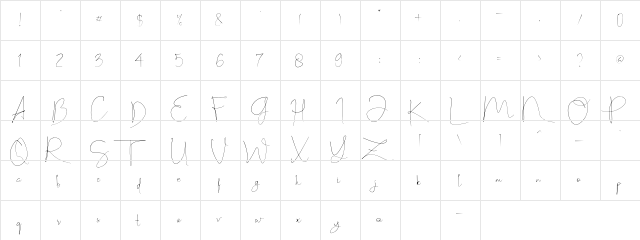
Suillirre Regular
Design Context for Suillirre Typeface
Suillirre is a composed and adaptable typeface that performs quietly and consistently across a wide range of design contexts.